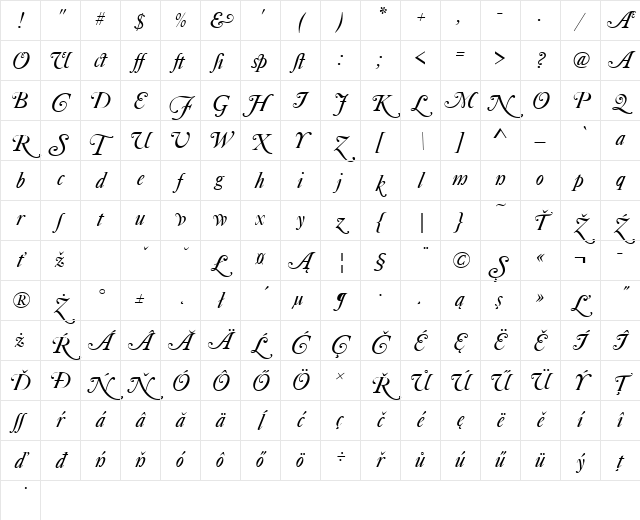
CaslonSwaAltDEE Italic
Complete CaslonSwaAltDEE Italic glyph index. Displaying only characters natively supported by CaslonSwaAltDEE Italic font.
Design Context for CaslonSwaAltDEE
CaslonSwaAltDEE is a composed and adaptable typeface that performs quietly and consistently across a wide range of design contexts. The slanted form adds forward momentum and visual energy.
Pro Tip: Use CaslonSwaAltDEE for emphasis, pull quotes, and subheadings where its slanted energy can add rhythm to the layout.